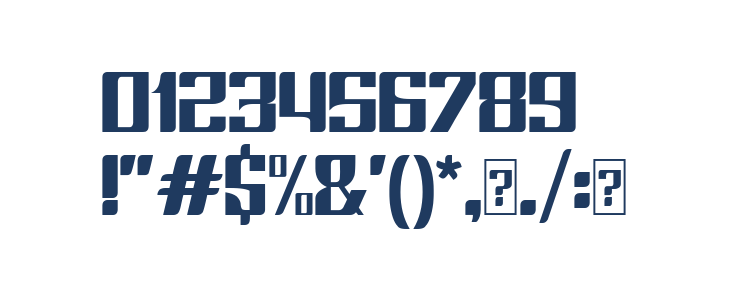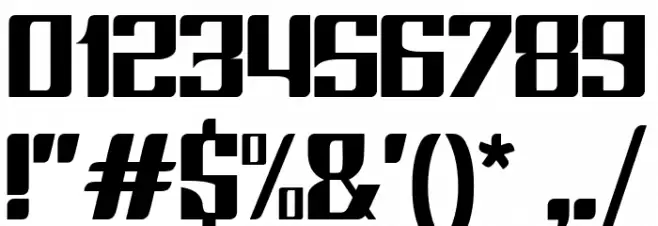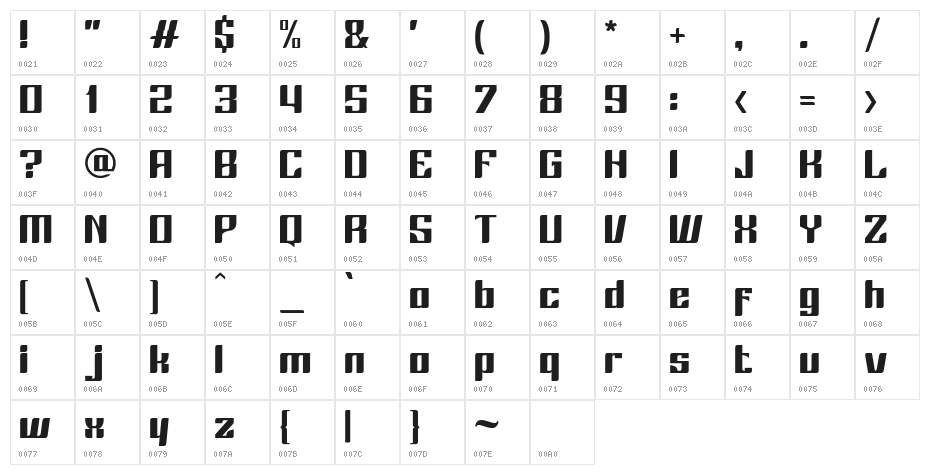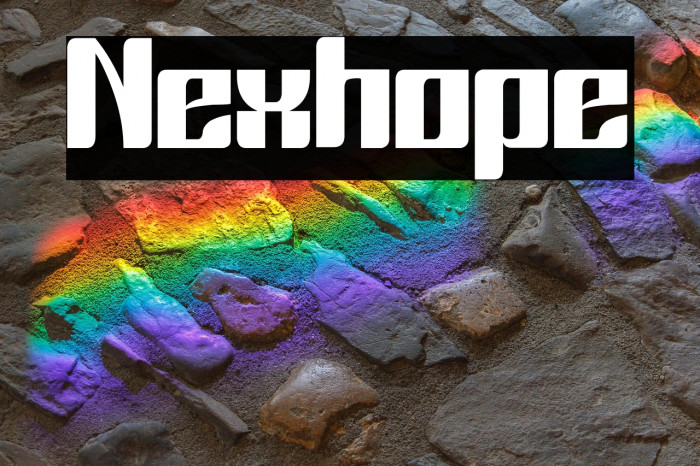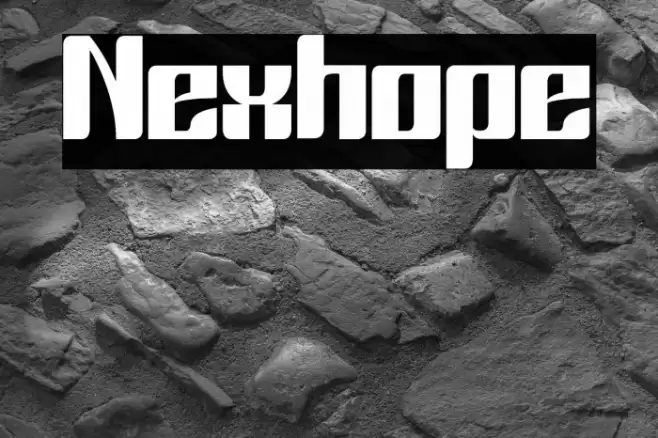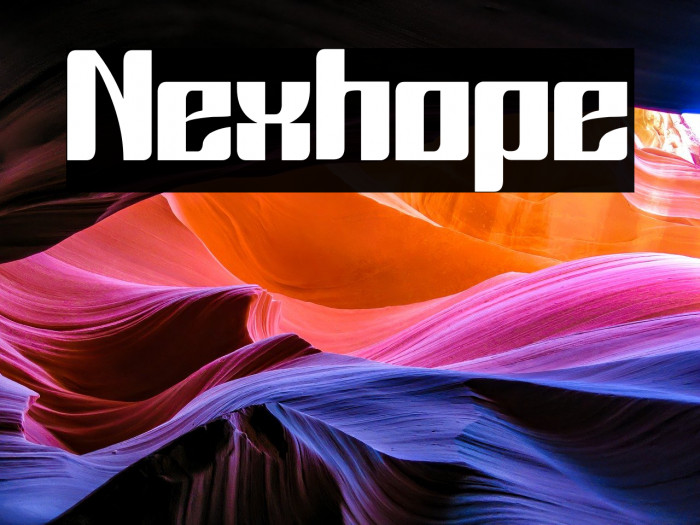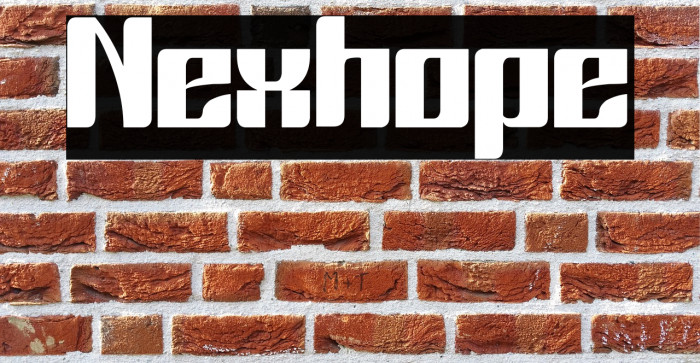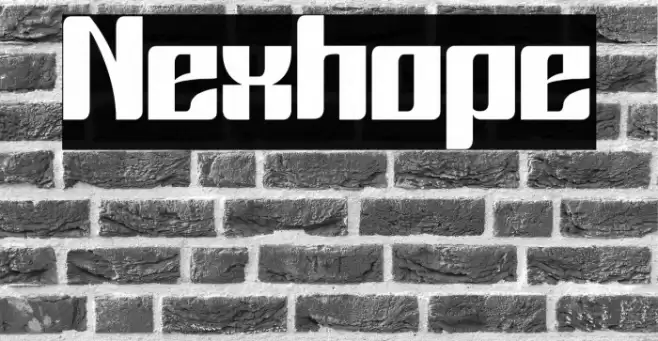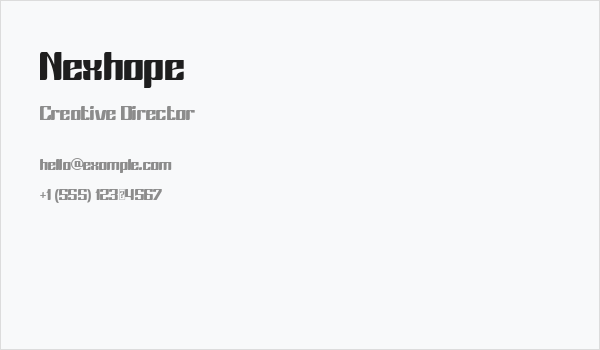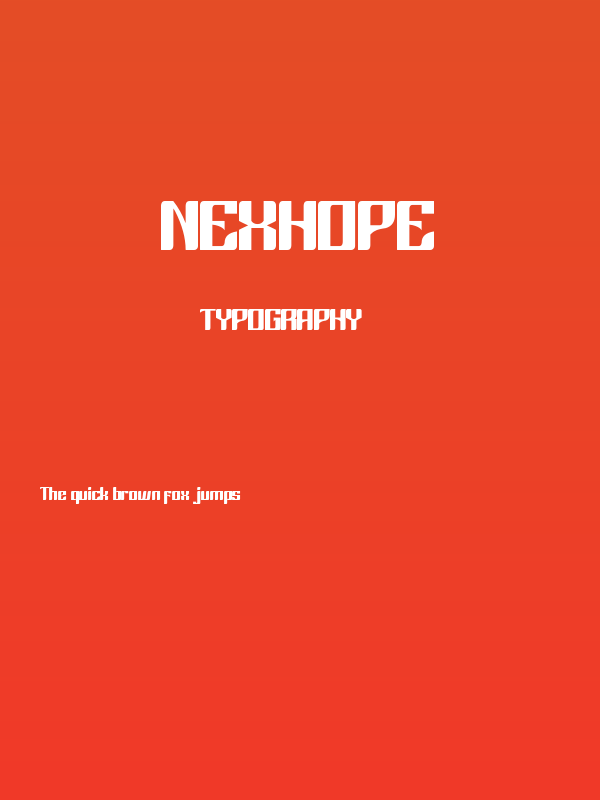
Nexhope Font
Nexhope Description
This font features a bold, geometric style with a modern and futuristic appeal. The characters are constructed with thick, block-like forms that convey strength and stability. The uppercase letters are particularly striking, with sharp angles and a consistent height that creates a uniform appearance. The lowercase letters maintain the boldness of the uppercase, with some unique variations that add character and interest. The numerals are equally bold and align well with the overall aesthetic. Special characters are designed to match the robust style, making this font versatile for various applications.
| Proposed Projects | Ideal for branding, logos, posters, and headlines that require a strong visual impact. |